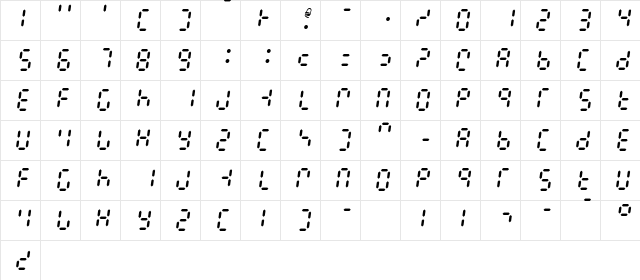
E1234 Italic
Design Context for E1234 Typeface
E1234 is a composed and adaptable typeface that performs quietly and consistently across a wide range of design contexts. The slanted form adds forward momentum and visual energy.
Pro Tip: Use E1234 for emphasis, pull quotes, and subheadings where its slanted energy can add rhythm to the layout.